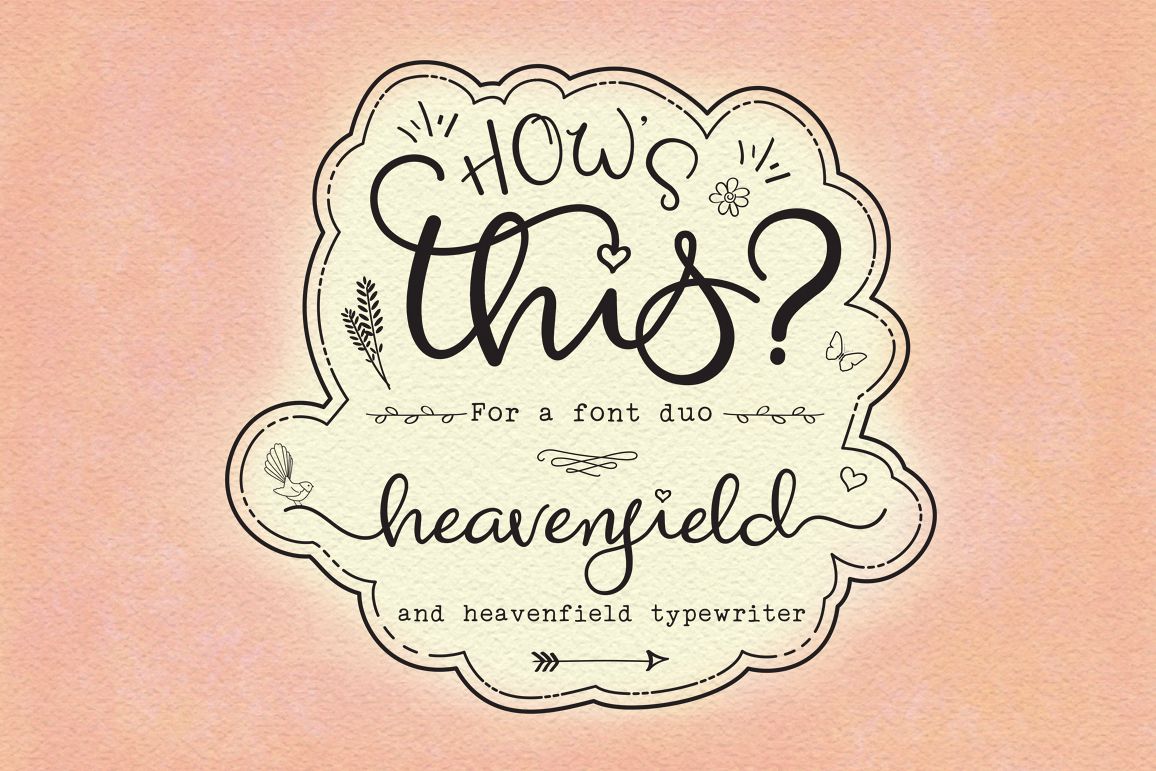
Heavenfield wedding font duo
Here's a cute little font duo full of happiness and love!
There are several alternates so you don't have to use the heart dotting the 'i' but it does emphasise romance in your designs which are to do with love, weddings, valentines, births, and logo designs.There are also some end swashes and ornaments to add that extra little something to your typography.
This font duo is perfect for diy crafts and wedding stationery designs (as you can see in the pictures). It's also great for logos - Heavenfield regular is a bold, flowing script font which can be easily read and Heavenfield Typewriter compliments it perfectly as a more formal, authentic font for taglines.